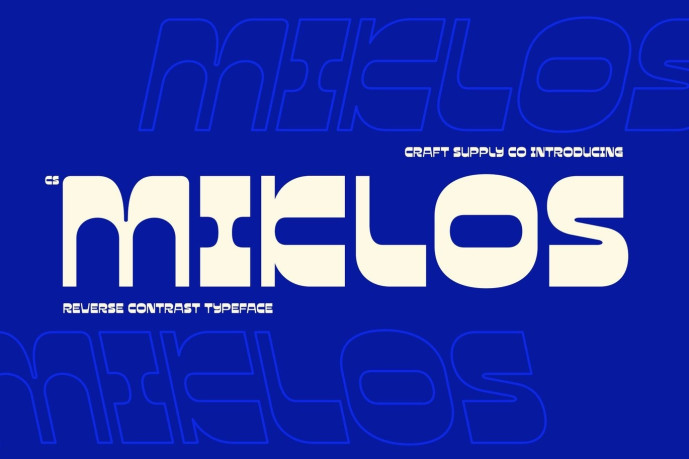
Miklos – Reverse Contrast Font
Designer: Craft Supply Co.
CS Miklos – Bold Reverse Contrast Geometric Display Sans Serif: Where Space Age Style Meets Modular Precision Wide Proportions with Bold Geometric Character This is a bold reverse contrast geometric display sans serif featuring wide proportions, rounded corners, and clean modular construction. Its unconventional stroke contrast, where horizontal strokes are emphasized over vertical ones, creates a striking visual rhythm that immediately sets it apart. The broad letterforms and geometric structure deliver a powerful presence while maintaining exceptional balance and clarity.
Rounded Details with a Futuristic Space Age Influence This font blends futuristic aesthetics with clean contemporary geometry. The rounded corners soften its bold construction, creating a friendly yet confident appearance, while the modular design reinforces its modern, technological character.
Distinctive Display Typography with Modern Precision This font creates a unique visual identity that is bold, modern, and highly recognizable. Its structured forms communicate innovation and confidence, while the clean construction ensures excellent readability in large-format applications. The result is typography that feels expressive, refined, and unmistakably original.
Perfect for Logos, Posters, and Contemporary Visual Identities Ideal for logos, posters, packaging, editorial headlines, visual identities, advertising campaigns, and other contemporary creative projects that demand bold, futuristic typography. Its reverse contrast construction, geometric forms, and Space Age-inspired character make it perfect for designs that communicate originality, innovation, and modern visual impact.